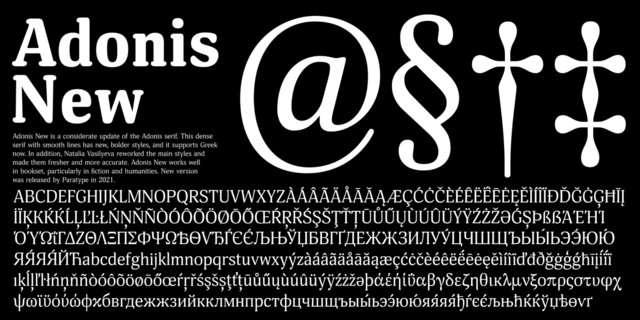
About Adonis New is a considerate update of the Adonis serif. This dense serif with smooth lines has new, bolder styles, and it supports Greek now. In addition, Natalia Vasilyeva reworked the main styles and made them fresher and more accurate. Adonis New works well in bookset, particularly in fiction and humanities. New version was released by ParaType in 2021.
Associations for font family Adonis NewTypeface personality and character:
Soft, cozy, moderate, calm, stable, universal, polite, cultured, comfortable, unobtrusive, flat, smooth, peaceful, friendly, clear, business, static, restrained, eco-friendly, green, harmonious, spring, humanitarian, organic, beautiful, convincing, saturated, delicious, lush, kind, pleasant, benevolent, plastic, affable, cute, family, home
medicines, recreation, hotel, health, medicine, flowers, ecology, comfort, business, hygiene, purity, Spring, cosmetics, beauty, philosophy, coffee, food, retail, advertising, pharmacy, milk, cheese, dessert, furniture, confectionery, sweets, bakery products, bun, buns, bakery, ice cream, children's book, cafe, game, pizza, family, dinner, smoothie, sauce, sour cream, ketchup, bubble gum, house Typeface associated with age: